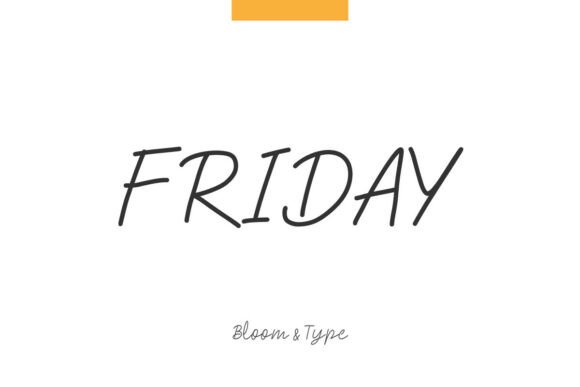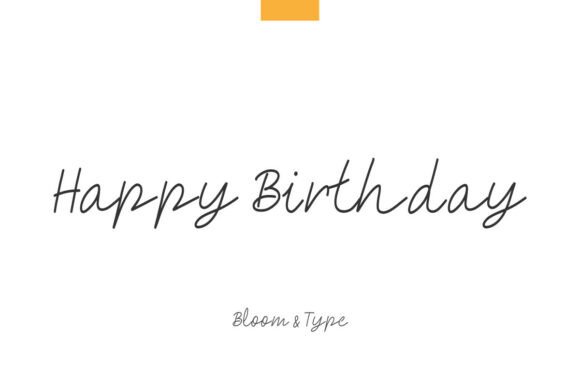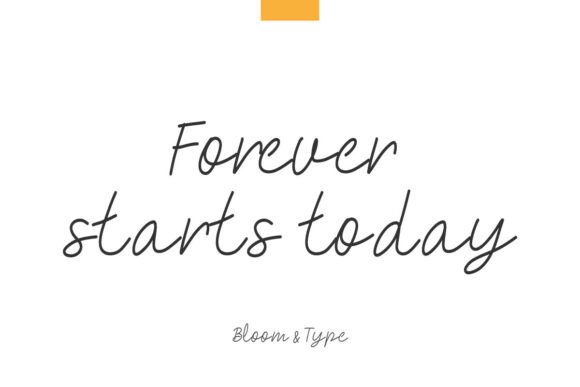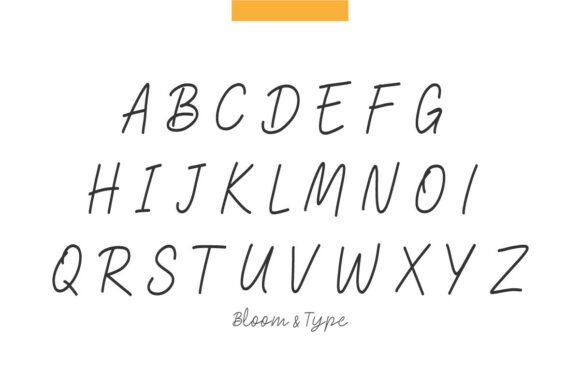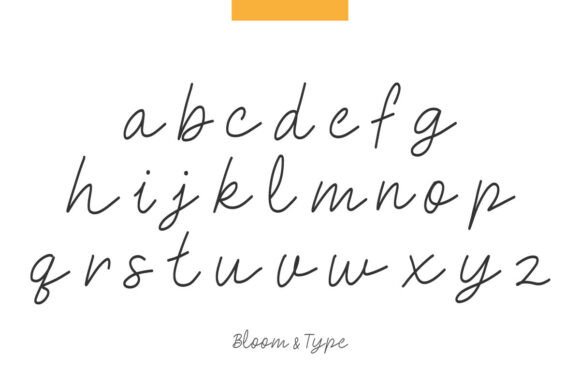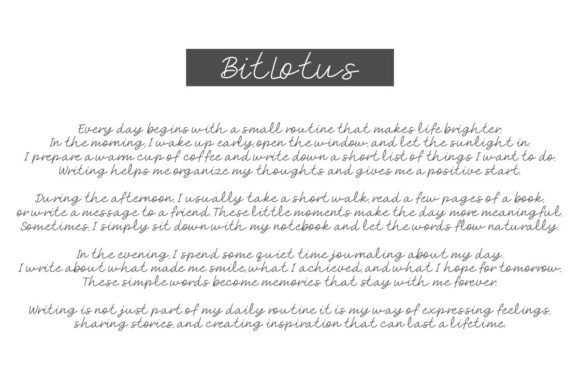
Introducing BitLotus: The Elegant Handwriting Script Font for Creative Projects
In the world of typography, a good font can make all the difference in the success of a design project. For designers and crafters looking for a font that exudes warmth, simplicity, and elegance, BitLotus is an excellent choice. This beautifully designed handwriting script font is perfect for adding a personal touch to various creative projects, from logos and branding to social media graphics, inspirational quotes, invitations, and packaging.
The Characteristics of BitLotus
BitLotus is a gracefully designed handwriting script font that boasts smooth curves and natural strokes, making every letter flow effortlessly like handwritten notes. Its characters feature a light yet refined touch, which adds personality and charm to any design project. The font’s simplicity and elegance make it an excellent choice for designers who want to create modern, minimal, or spiritual-themed designs.
Versatility of BitLotus
One of the standout features of BitLotus is its versatility. This font can be used for a wide range of design projects, including:
- Logos and Branding: Create a lasting impression with a unique and elegant logo that reflects your brand’s personality.
- Social Media Graphics: Add a personal touch to your social media posts and stories with BitLotus.
- Inspirational Quotes: Make your quotes stand out with a beautiful and elegant font.
- Invitations: Create stunning invitations for special occasions, such as weddings, birthdays, and baby showers.
- Packaging: Add a touch of elegance to your product packaging with BitLotus.
Why Choose BitLotus?
So, why should designers and crafters choose BitLotus over other fonts? Here are a few reasons:
- Unique and Elegant: BitLotus offers a unique and elegant design that will make your projects stand out.
- Easy to Read: The font’s smooth curves and natural strokes make it easy to read, even at small sizes.
- Versatile: BitLotus can be used for a wide range of design projects, making it a great addition to any designer’s toolkit.
- Calming and Creative Atmosphere: BitLotus brings a calming and creative atmosphere to any design project, making it perfect for designers who want to create a specific mood or ambiance.
Tips for Using BitLotus
To get the most out of BitLotus, here are a few tips:
- Use it as a Headline Font: BitLotus is perfect for headlines and titles, so use it to make a statement.
- Pair it with Other Fonts: Experiment with pairing BitLotus with other fonts to create a unique and interesting design.
- Adjust the Size and Color: Play around with different sizes and colors to find the perfect combination for your design.
In conclusion, BitLotus is a beautifully designed handwriting script font that offers a unique and elegant solution for designers and crafters. Its versatility, simplicity, and elegance make it perfect for a wide range of design projects, from logos and branding to social media graphics, inspirational quotes, invitations, and packaging. With BitLotus, designers can create modern, minimal, or spiritual-themed designs that bring a calming and creative atmosphere to their work.
So, if you’re looking for a font that will add a personal touch to your design projects, look no further than BitLotus. Its smooth curves, natural strokes, and elegant design make it an excellent choice for any designer or crafter looking to create stunning and effective designs.